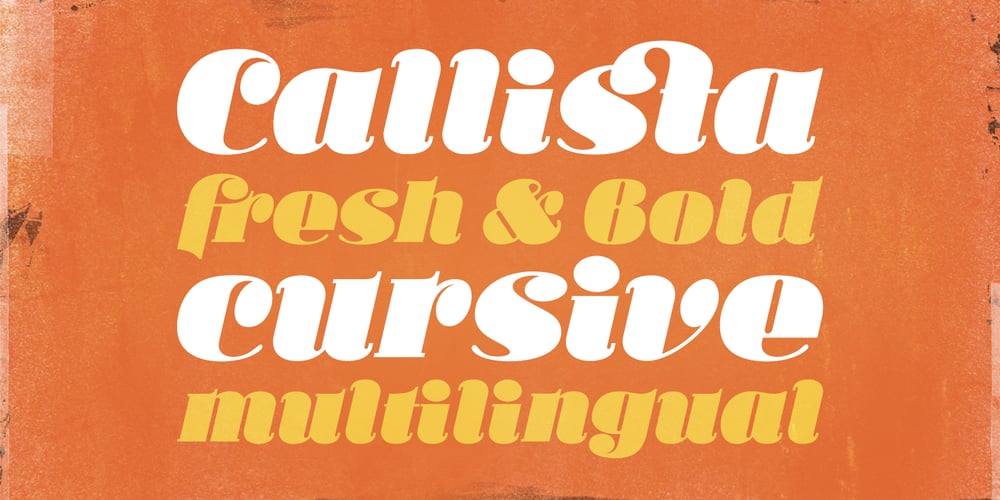
Ka Callista Font Family was designed by Vassil Kateliev and published by Karandash. Ka Callista contains 1 styles and family package options. Callista (from the Greek for “most beautiful”) is a fat cursive typeface, inspired by the works of Francois Boltana in the early 1970s and those of Milka Peykova in late 1970s. With its Full Latin and Cyrillic support, Callista is a perfect choice for short headlines and logotype design.